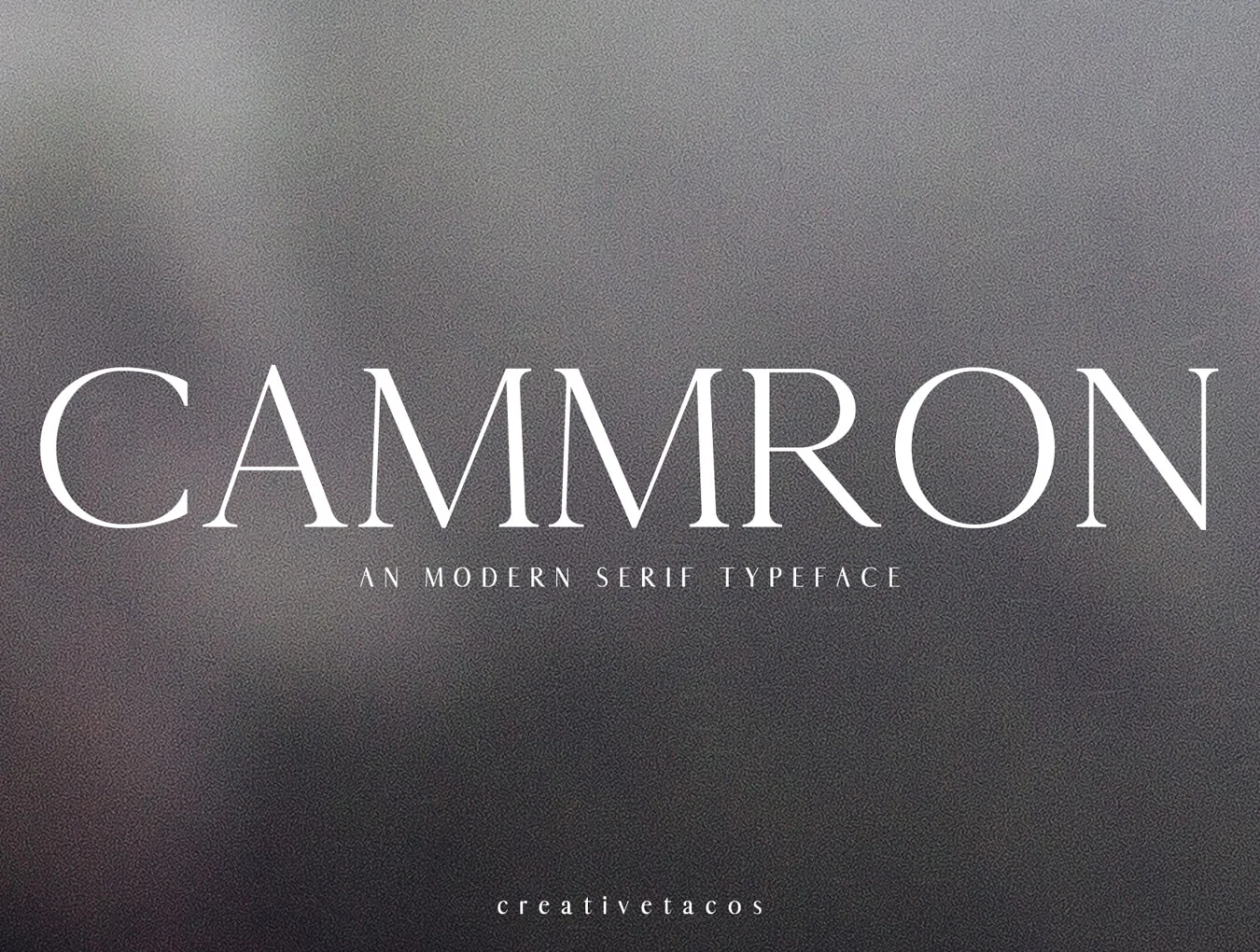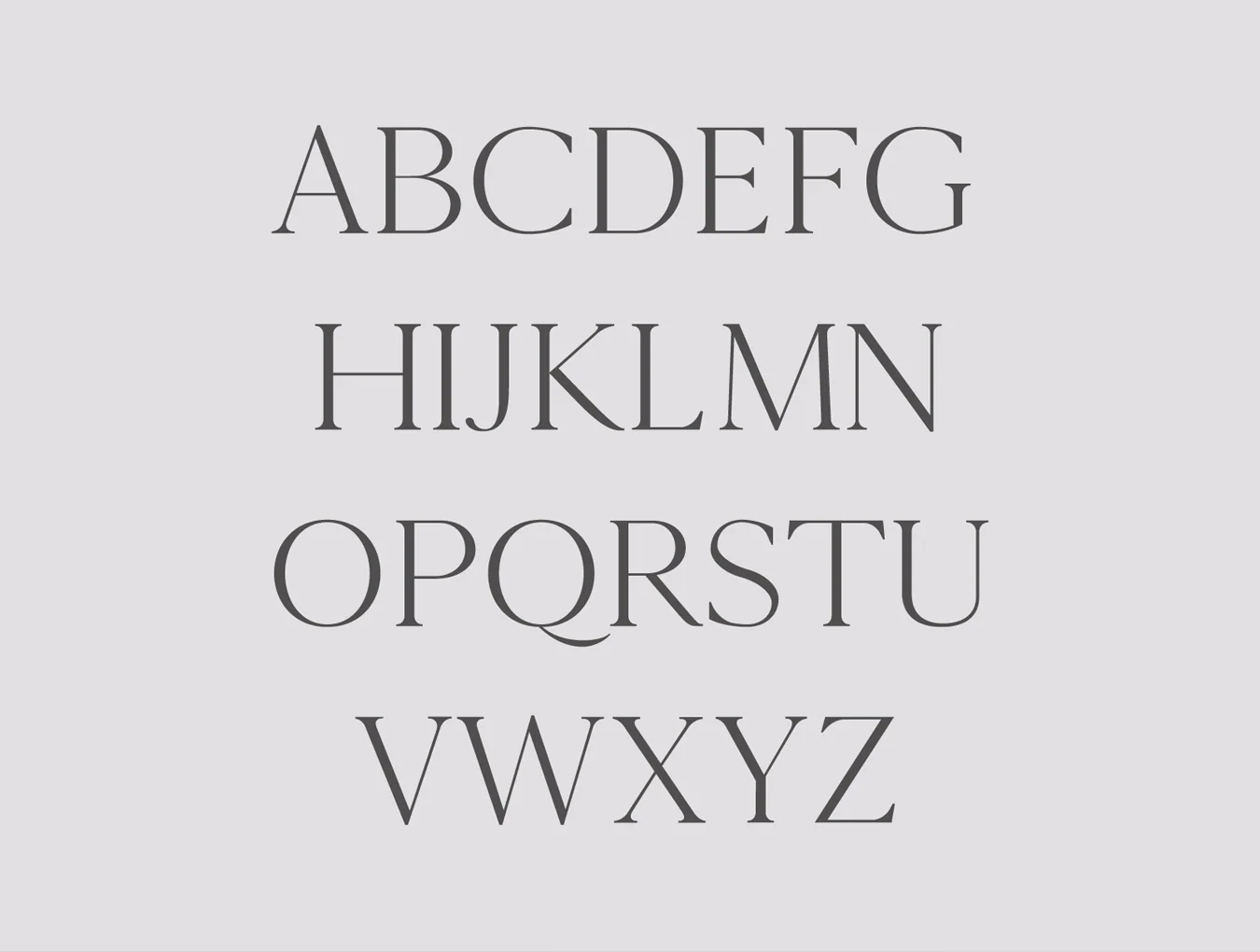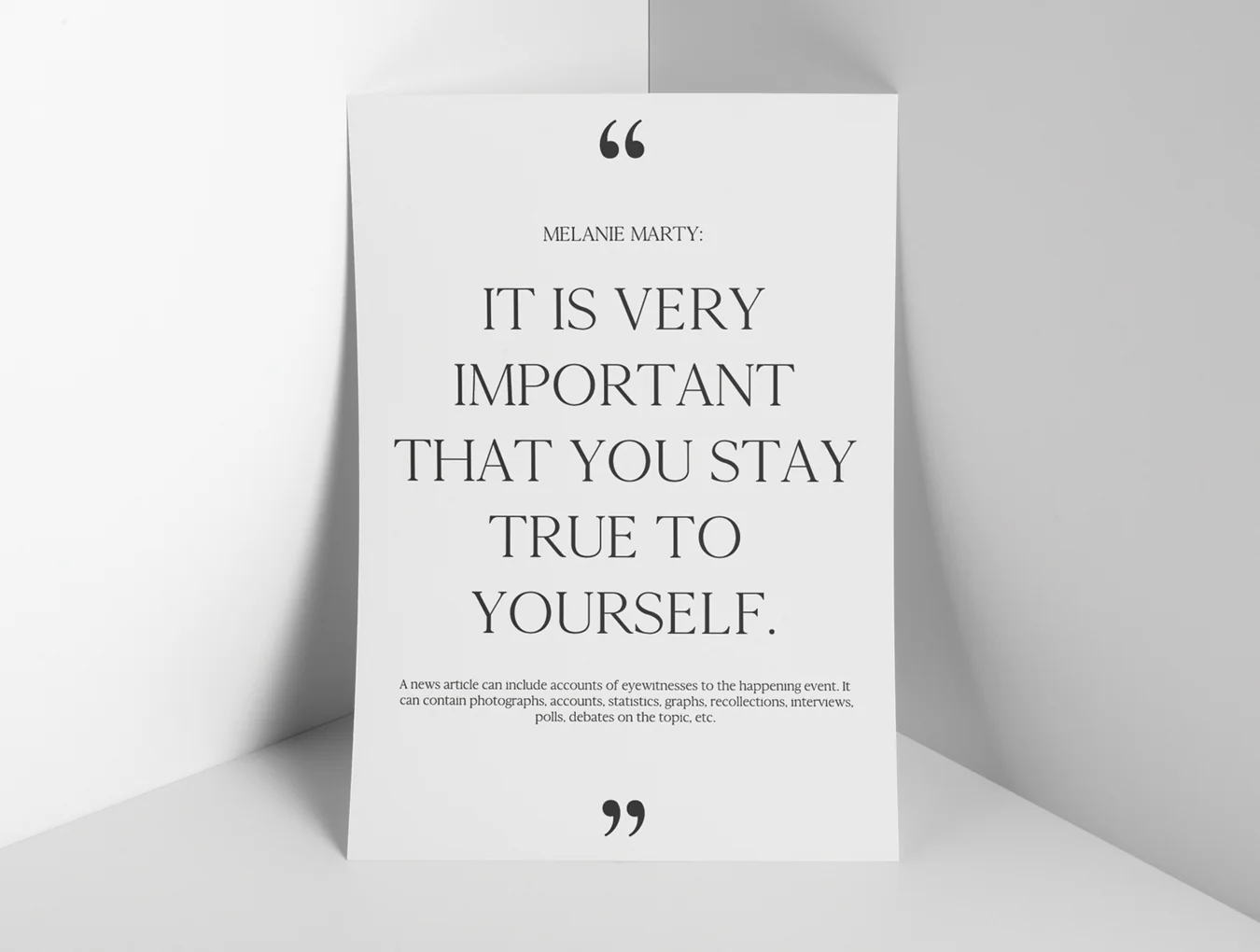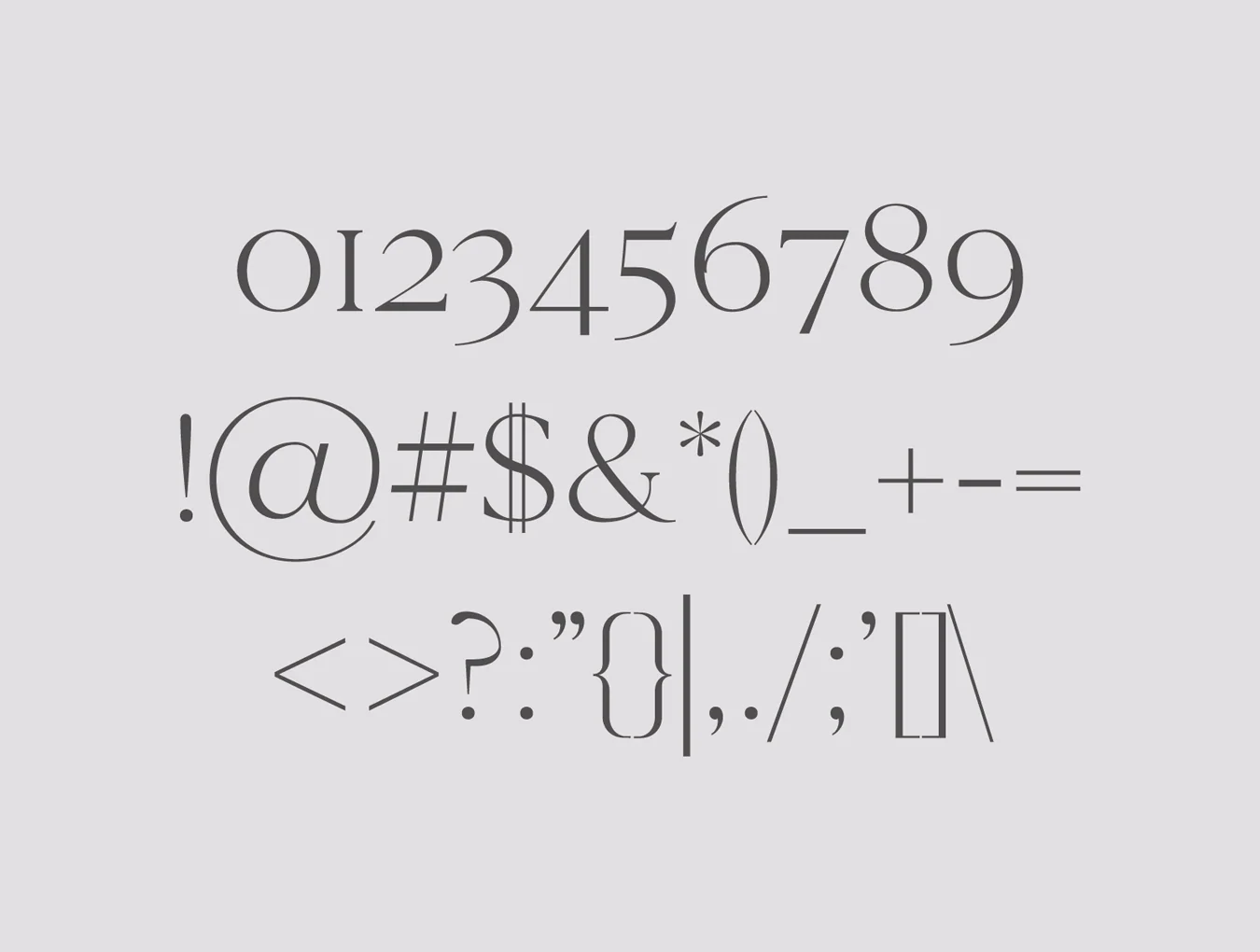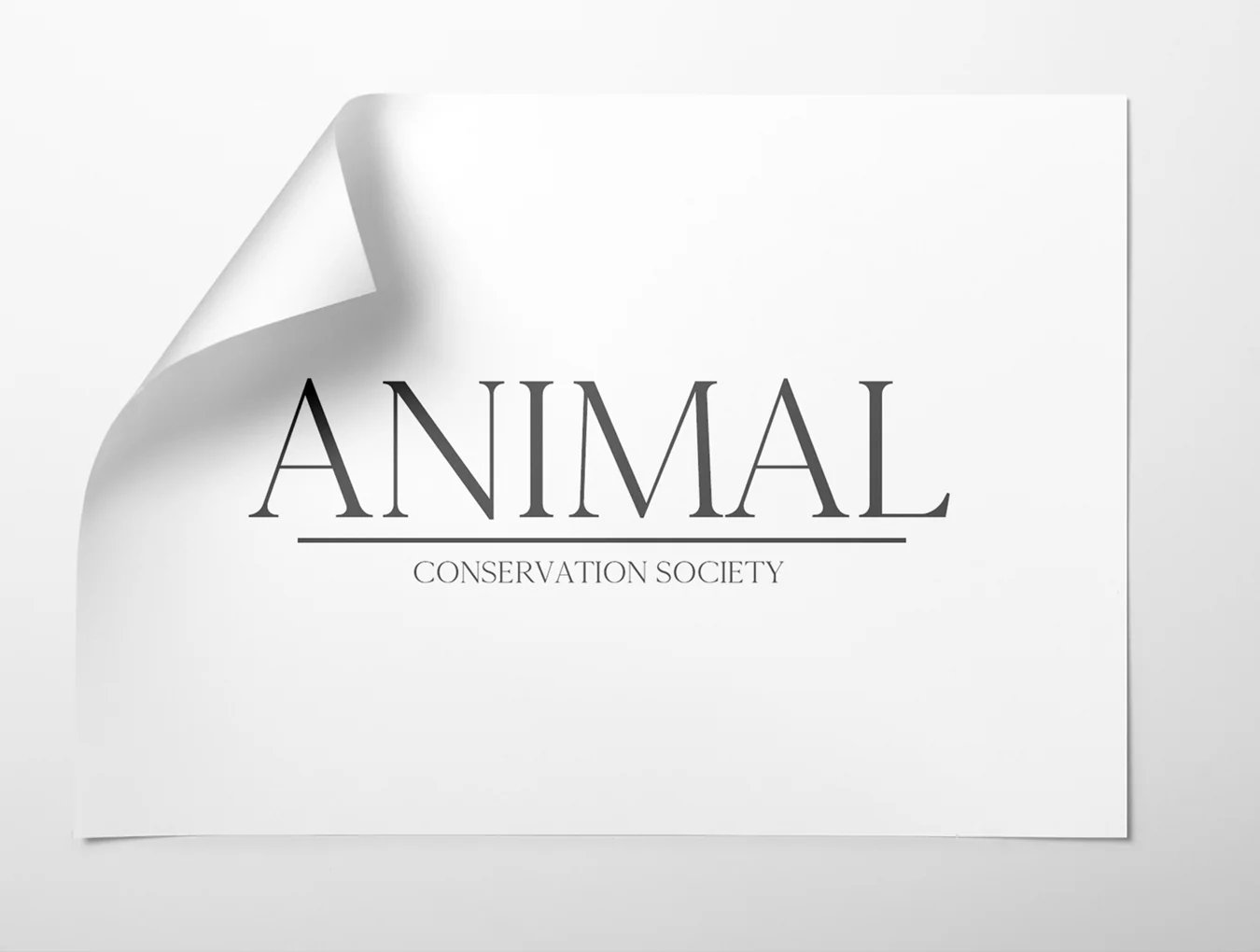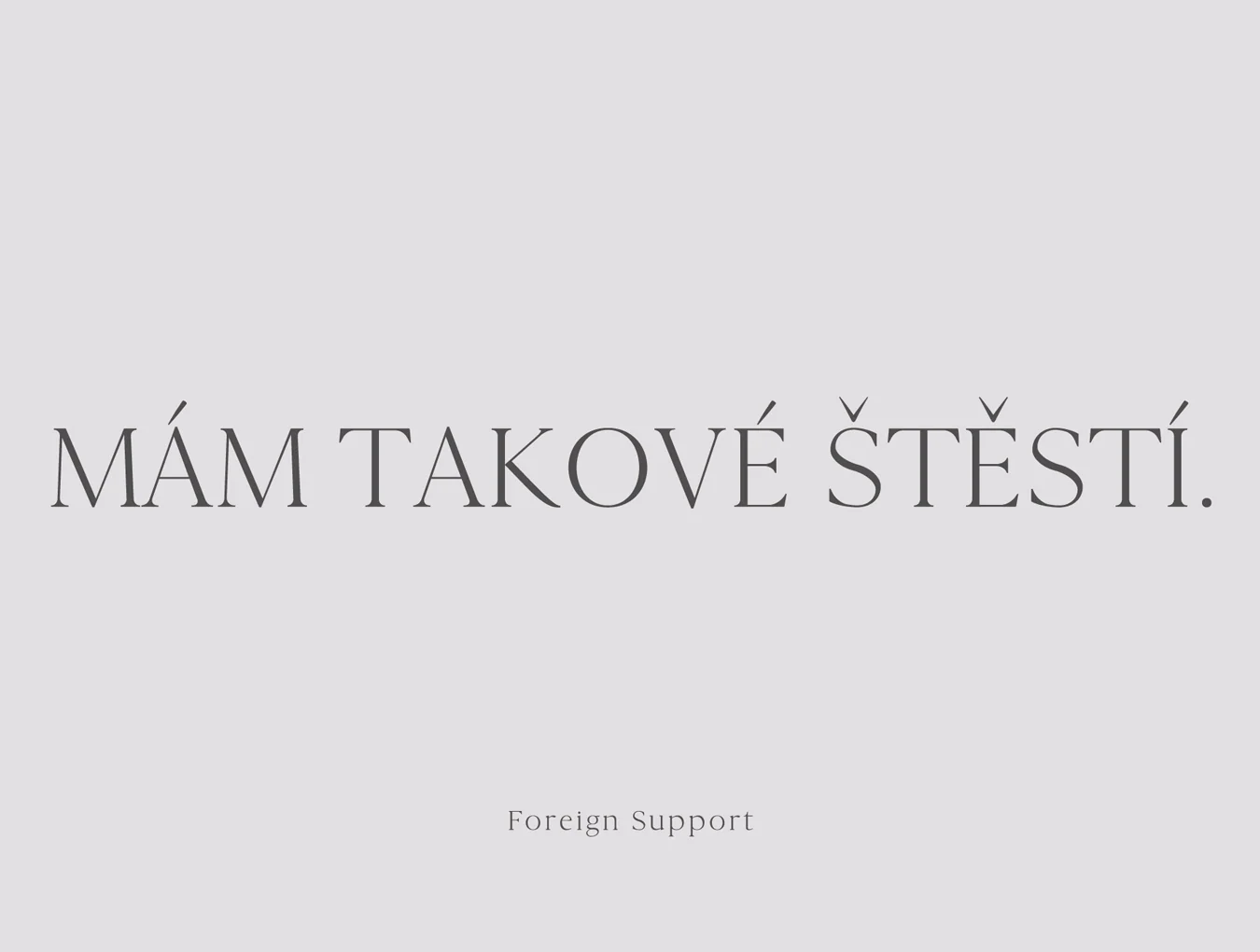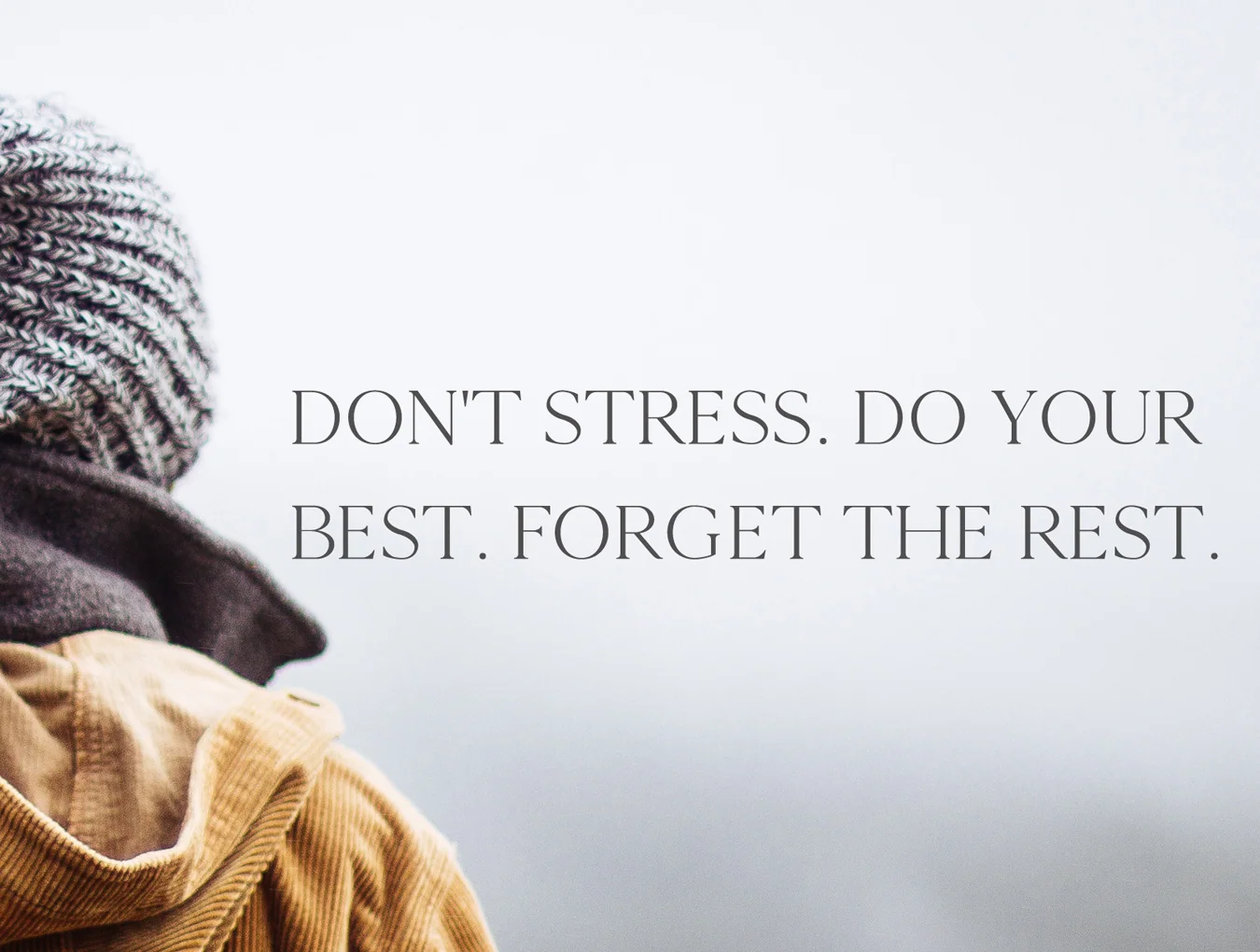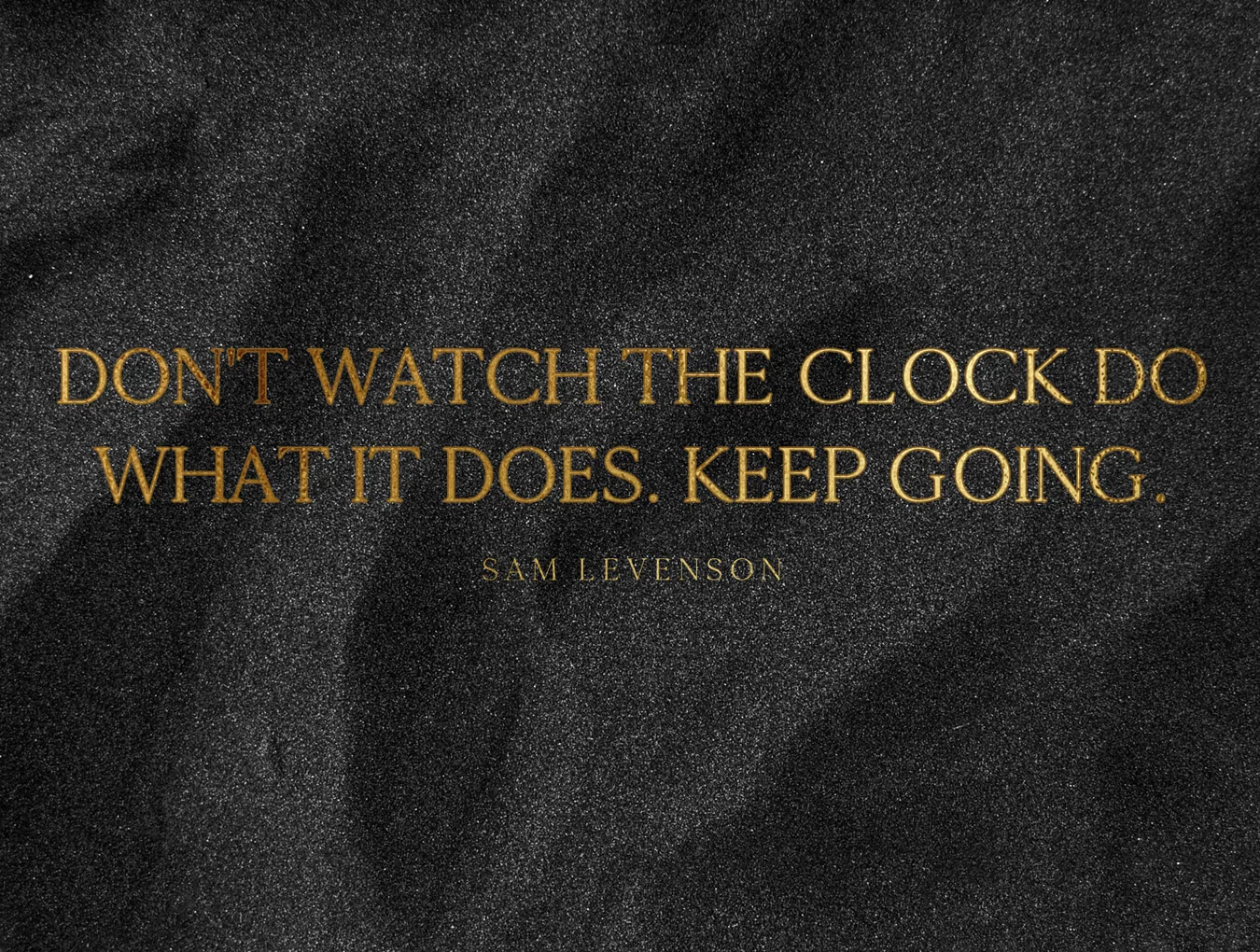
Cammron Serif Font Family
Serif font style
287 glyphs, numerals and punctuation
Regular, Light, Round and Bold styles
Cammron is a stylish contemporary serif font family featuring essential glyphs and multilingual characters. It pairs elegantly with script, signature, or handwritten fonts, making it ideal for headlines, titles, magazine headers, logos, ads, posters, quotes, web designs, invitations, packaging, books, branding, and many creative projects.